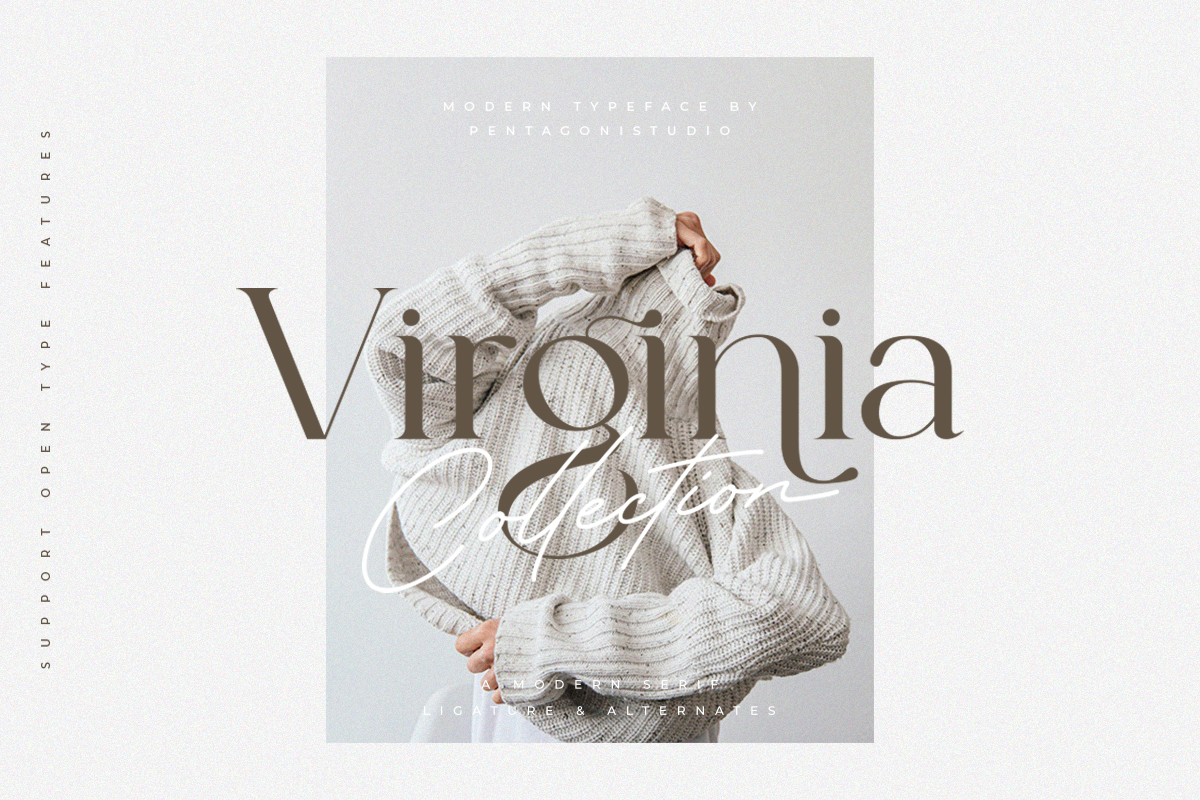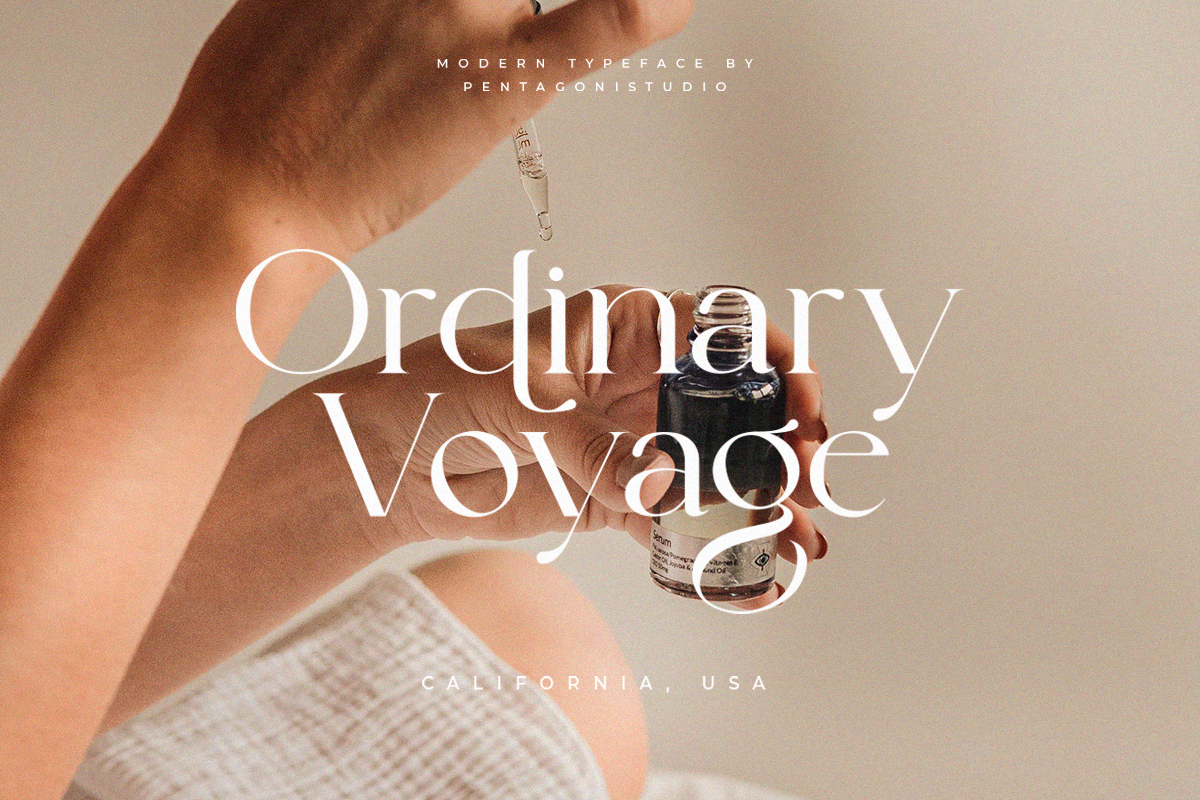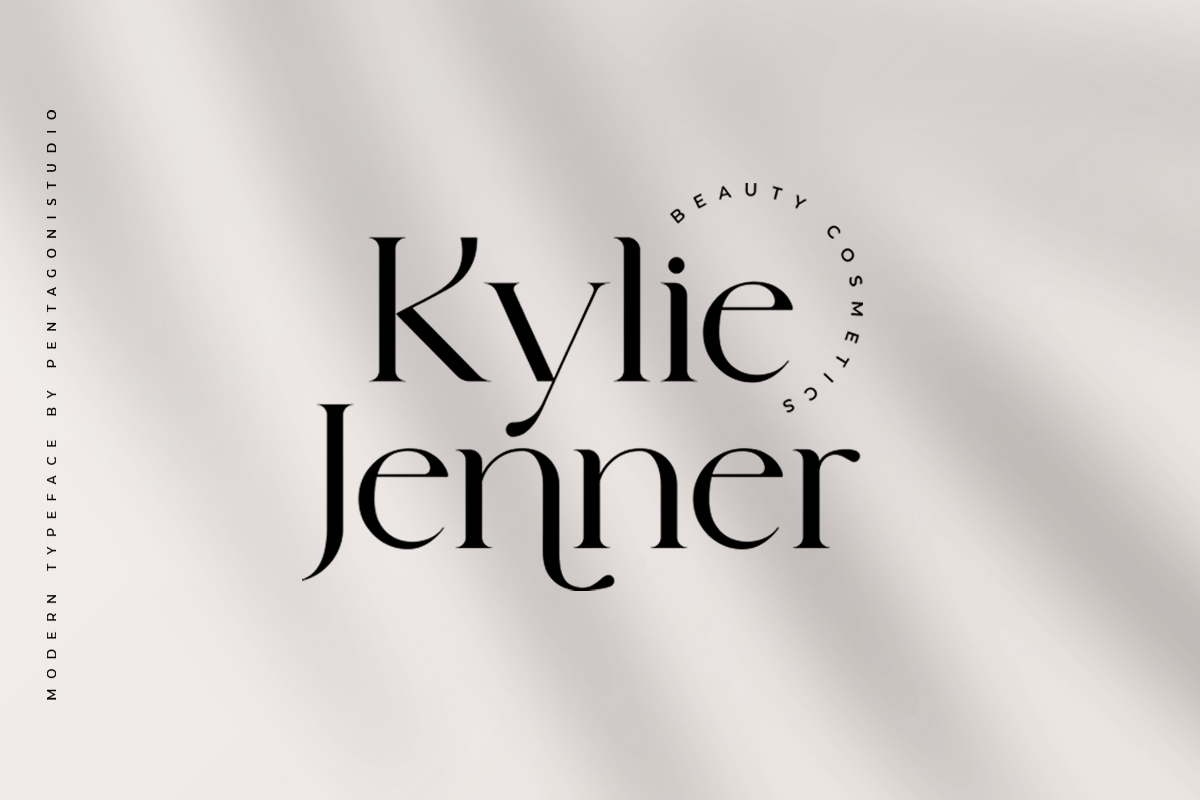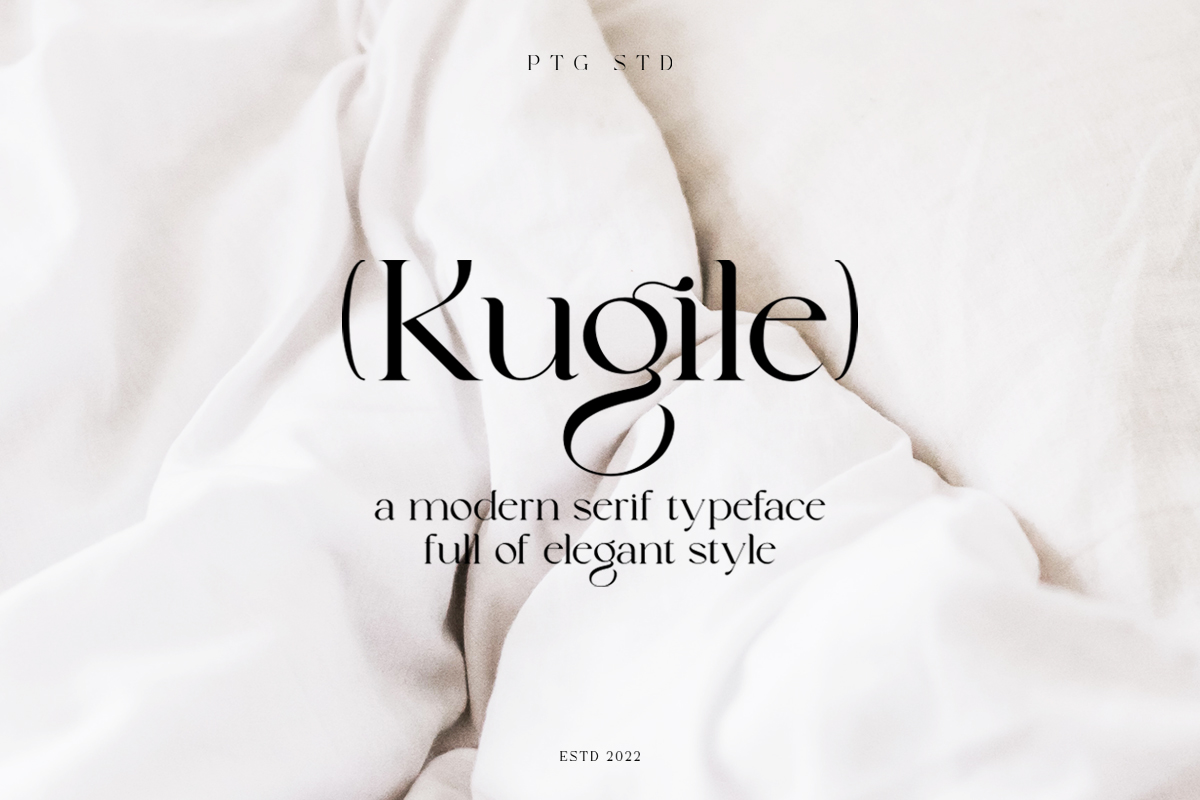
Kugile Font
Kugile Serif Font
This Font Is An classy serif font Inspired By Luxury and Elegant Character. The standard and discretionary ligatures help achieve a more tailored look, excellent for branding, logo design, poster design etc.